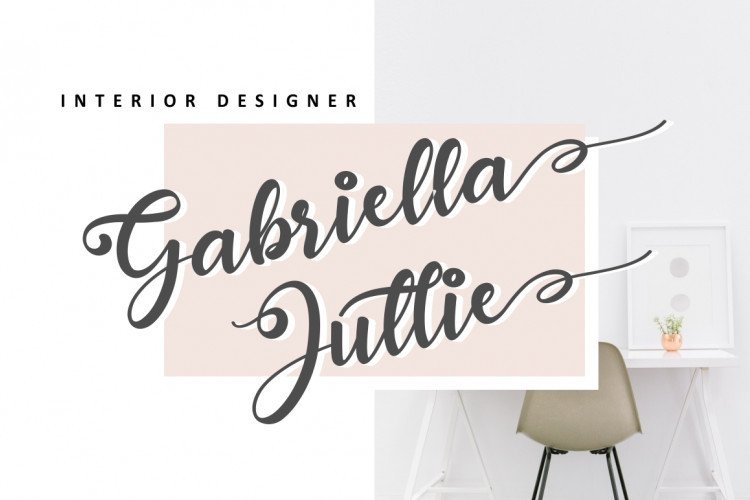
Anadya Handwritten Script Font
This is a modern scripts with handwriting, decorative characters, and basic dance lines. The idea is to help designers to combine and incorporate together of the fonts in your design creative work. Introducing Anadya Font. It’s designed and shared by Ketikata Studio. Anadya Handwritten Script Font is a Modern Handwritting script font. carefuly crafted with Brush lettering. that contains many stylistic alternate and swashes that will help you to creat your own customized design. This font has unique and perfect for Sweet design and other design needs, like for qoutes, merchandise, packaging, business card and many other project.